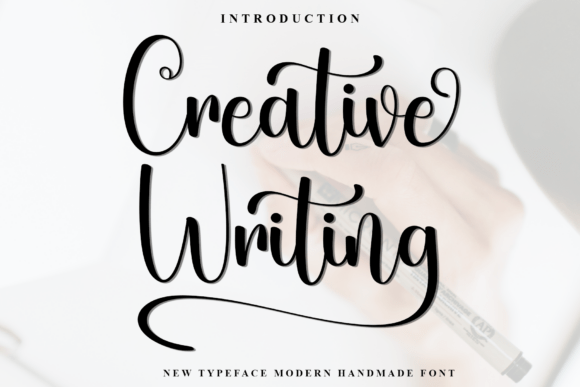
Unleash Your Imagination with the Perfect Font
Have you ever sat down with a blank sheet of paper, staring at the empty space, waiting for inspiration to strike? The moment when words begin to flow, and your creative juices start to flow, is a magical one. It’s in these moments that we realize the importance of the right tools to bring our ideas to life.
That’s where the Creative Writing Font comes in – a beautiful and eye-catching font designed to help you express yourself in a unique and captivating way. This font is perfect for designers looking to add a touch of personality to their projects, from crafts to design work. With its distinctive strokes and versatility, the Creative Writing Font is a valuable addition to any creative’s toolkit.
Whether you’re a seasoned designer or just starting out, this font will help you elevate your work and connect with your audience on a deeper level.
Creative Writing Font Key Features
- Font Family: The Creative Writing Font comes in a single font family, designed to evoke a sense of elegance and sophistication.
- Unique Characteristics: The font features a unique, handwritten style with subtle flourishes and connections between letters, giving it a personal and artistic touch.
- Language Support: The font supports a wide range of languages, including Latin, Cyrillic, and Greek, making it suitable for use in diverse writing and design projects.
Designer Review: Creative Writing Font
Overall, I think the Creative Writing Font has some nice touches, but it falls short in a few areas. Here’s what I think works well: ✨ The font’s cursive script is quite elegant and would be perfect for hand-written notes or journaling. The rounded edges and soft curves give it a friendly feel. ✨ I also appreciate the font’s versatility – it comes in several weights and styles, making it easy to mix and match to create a unique look. ✨ Additionally, the font is highly legible, even at smaller sizes, which is great for body text.
However, there are a few limitations that hold me back from fully endorsing the Creative Writing Font: ⚠️ The font is not ideal for headings or titles, as the cursive script can be difficult to read in bold or larger sizes. ⚠️ The font also lacks a clear hierarchy of sizes, which can make it hard to distinguish between different levels of text. ⚠️ Finally, the font’s customization options are limited, which can make it difficult to achieve a specific look or feel.
Overall, I think the Creative Writing Font is a solid choice for certain types of projects, but it’s not a one-size-fits-all solution. If you’re looking for a font for hand-written notes or journaling, this one is definitely worth considering. However, if you need a font for headings or titles, or if you require a high level of customization, you may want to look elsewhere.
- Perfect for hand-written notes or journaling
- Highly legible at smaller sizes
- Comes in several weights and styles
- Lacks clear hierarchy of sizes
- Difficult to read in bold or larger sizes
- Customization options are limited
Tips for Getting the Most Out of Creative Writing Font
Here are some tips to help you get the most out of Creative Writing Font:
- Use the font in combination with other design elements to create a cohesive visual identity.
- Take advantage of the font’s versatility by using it in a variety of contexts, such as titles, headings, and body text.
Creative Writing Font is suitable for a variety of applications, including:
- Book covers and interior design
- Hand-drawn illustrations of flowers, leaves, or other natural elements
- Watercolor backgrounds in soft pastel colors